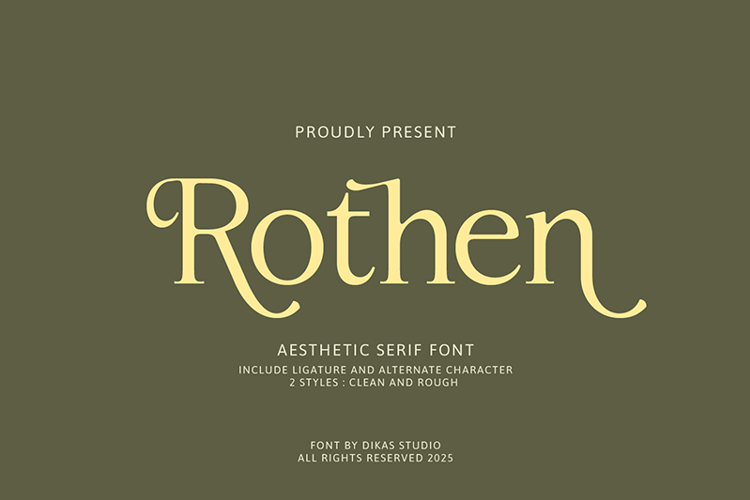
Rothen Font
Rough Style
Rothen is a stylish serif font that blends elegance with artistic character. Designed with attention to detail, Rothen offers a graceful aesthetic enhanced by beautifully crafted alternate characters and ligatures — perfect for creating expressive and high-end typography.